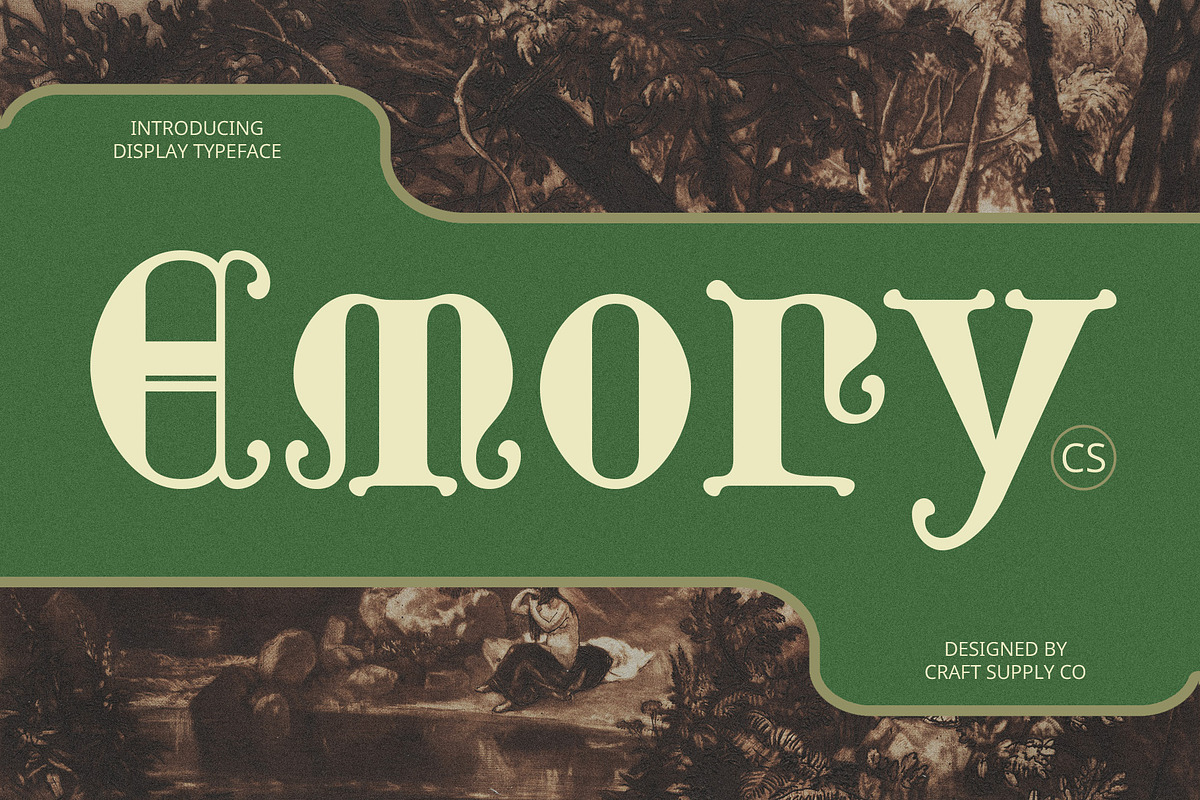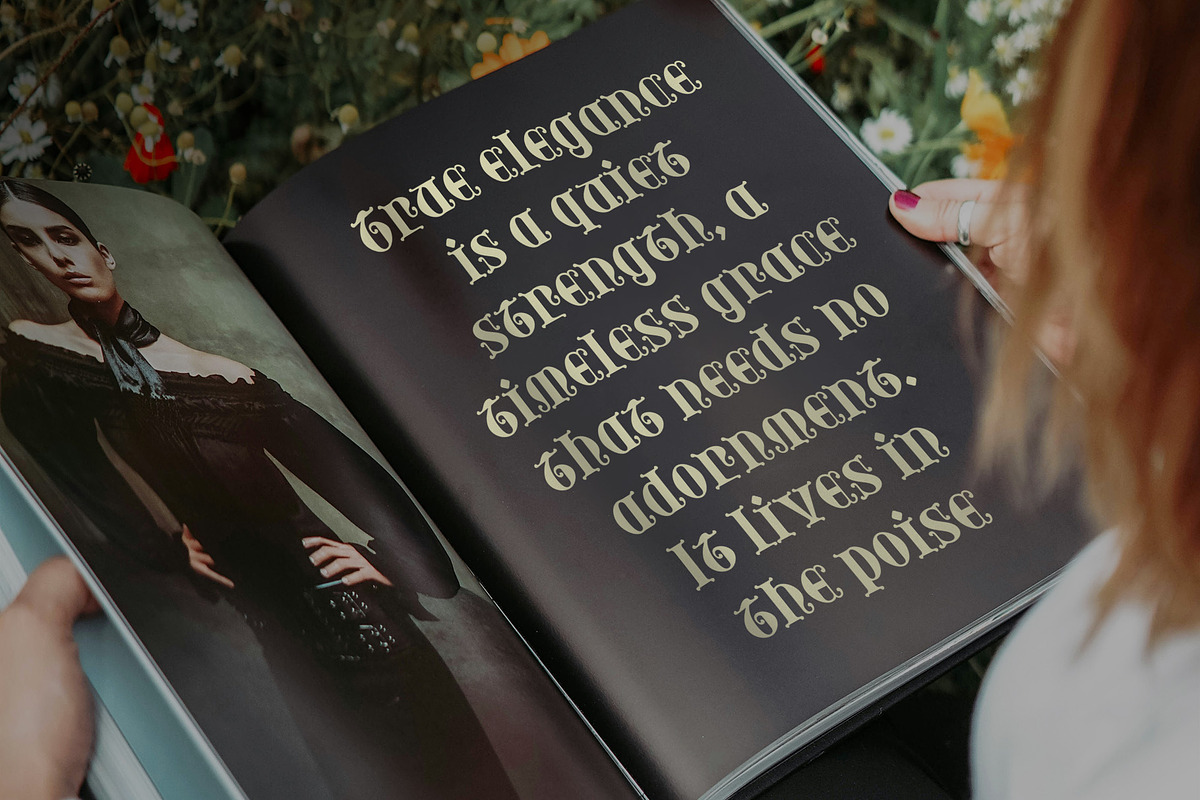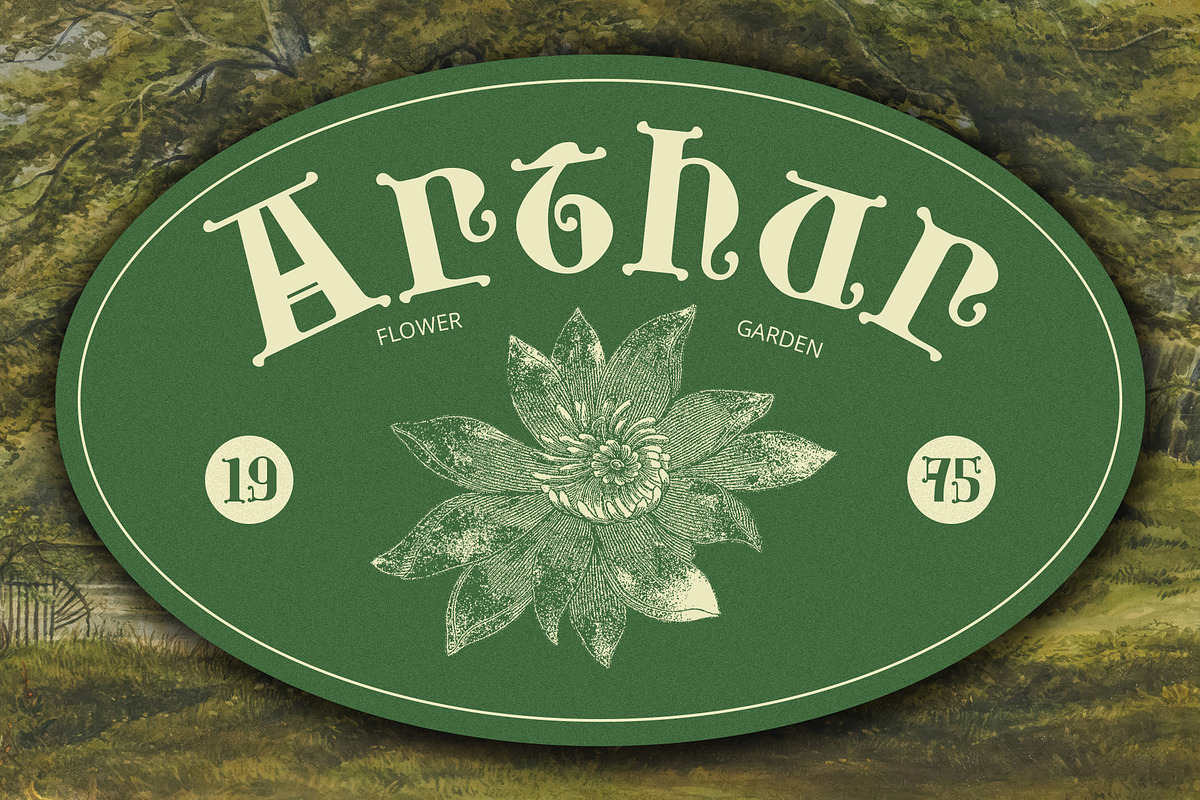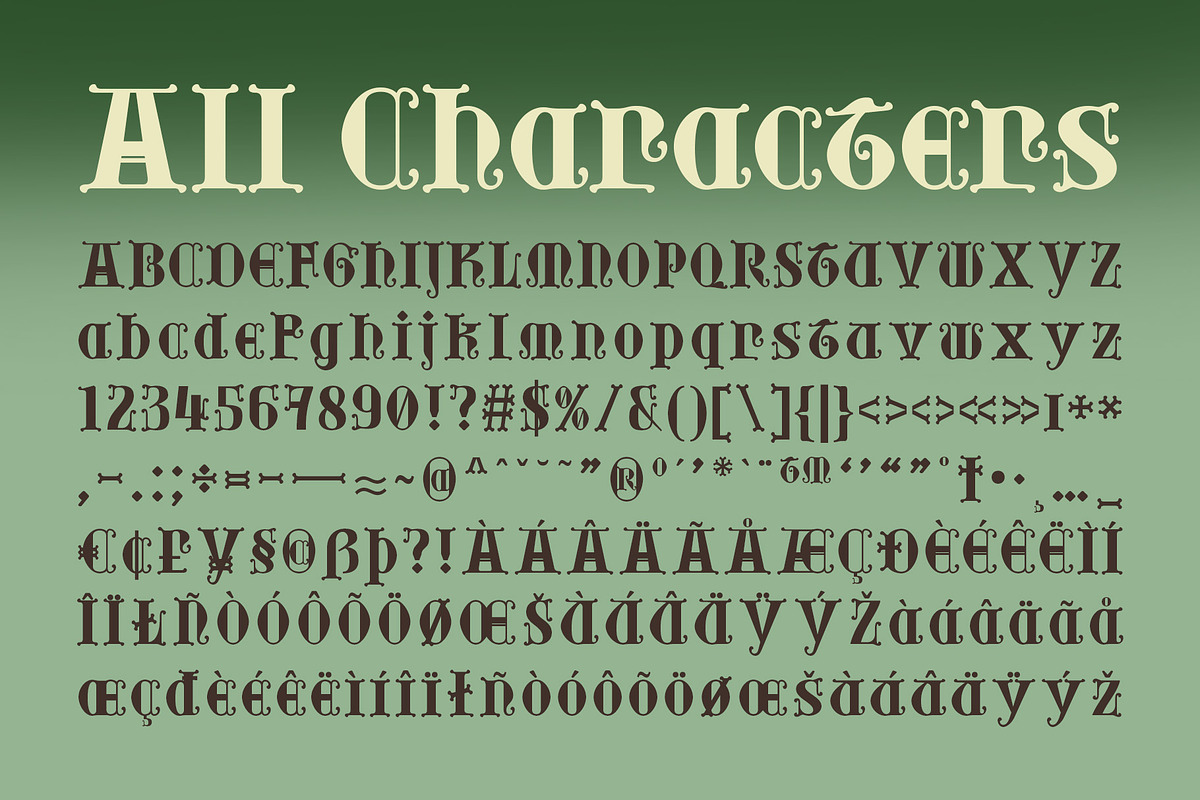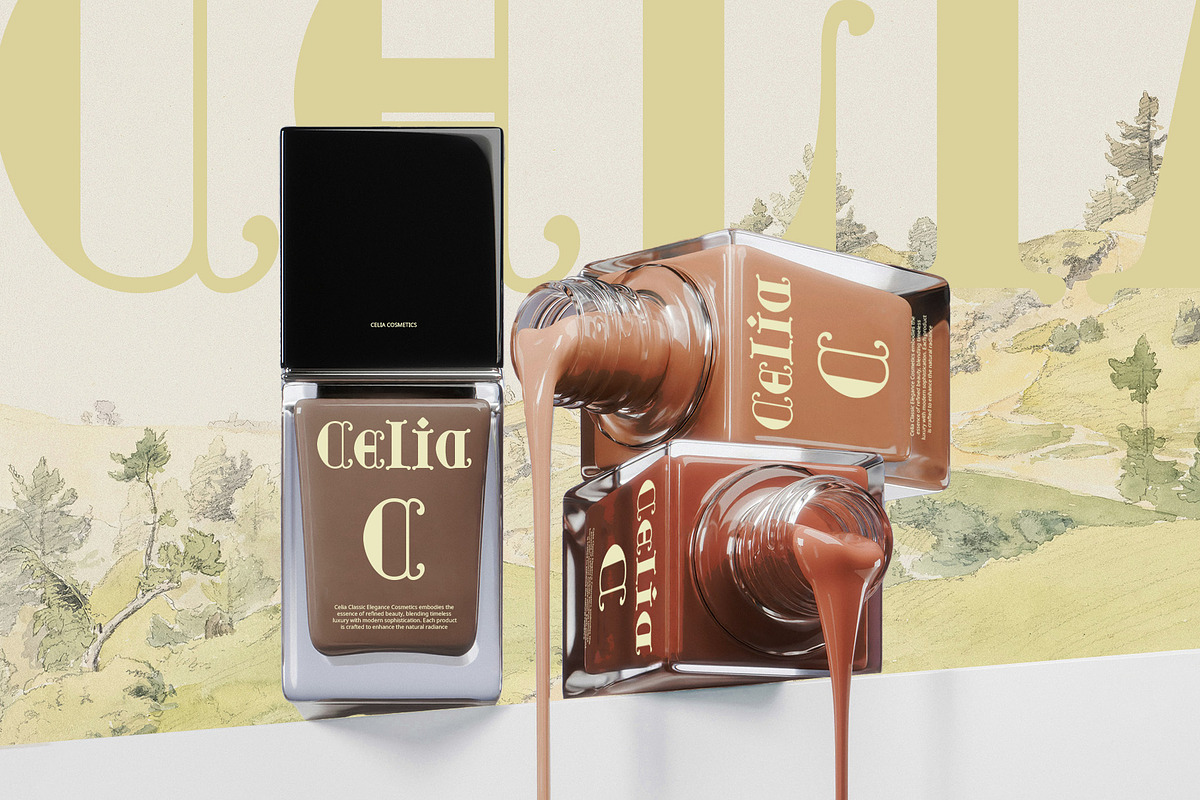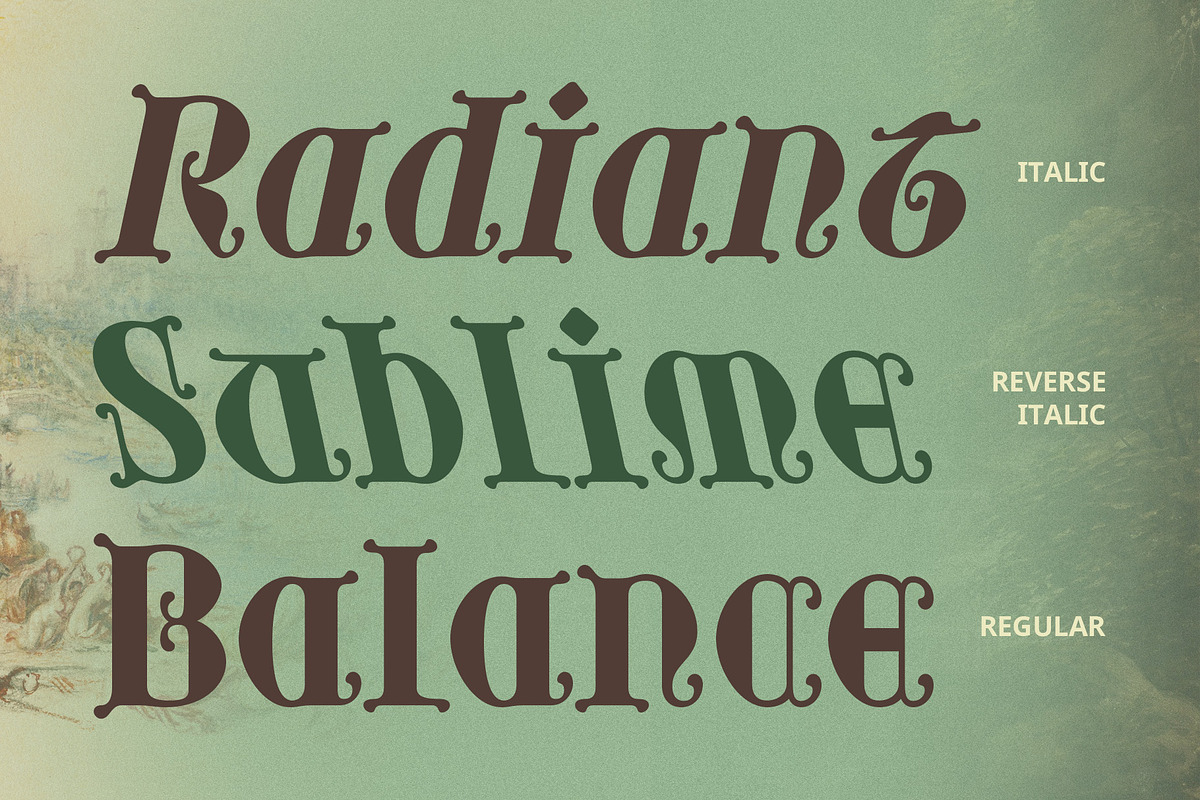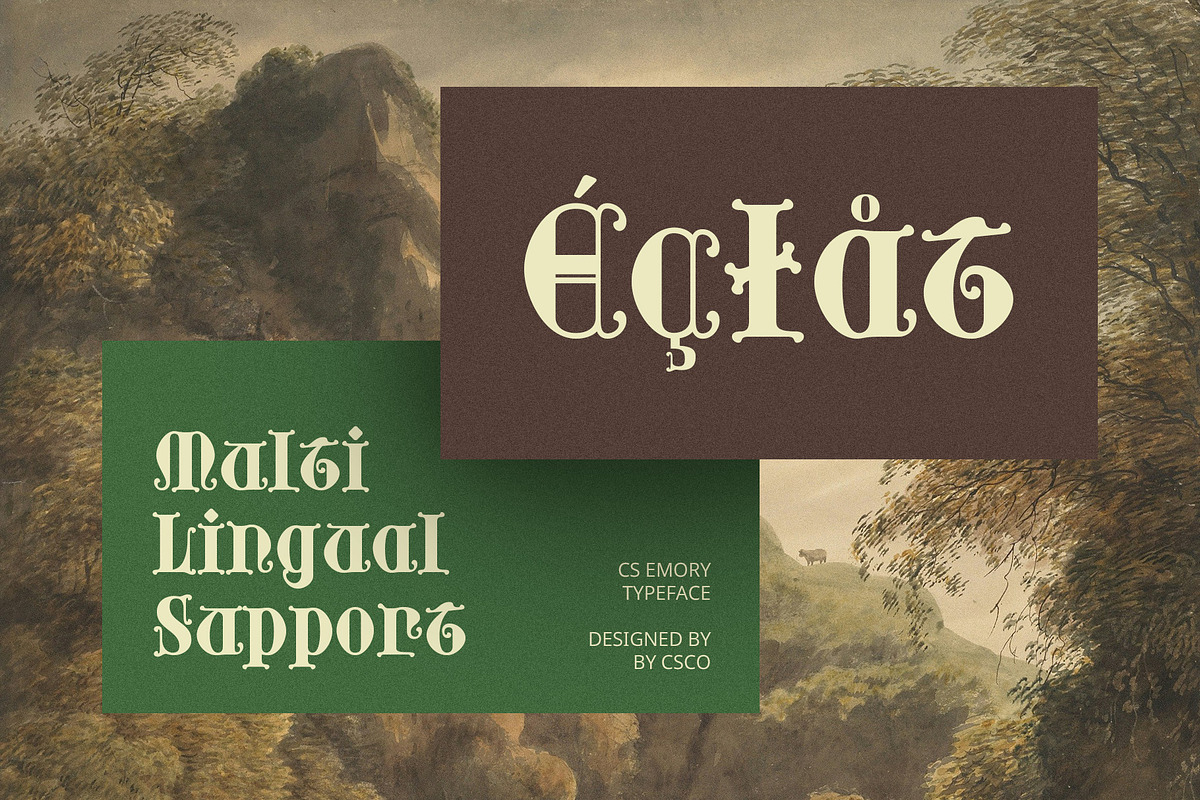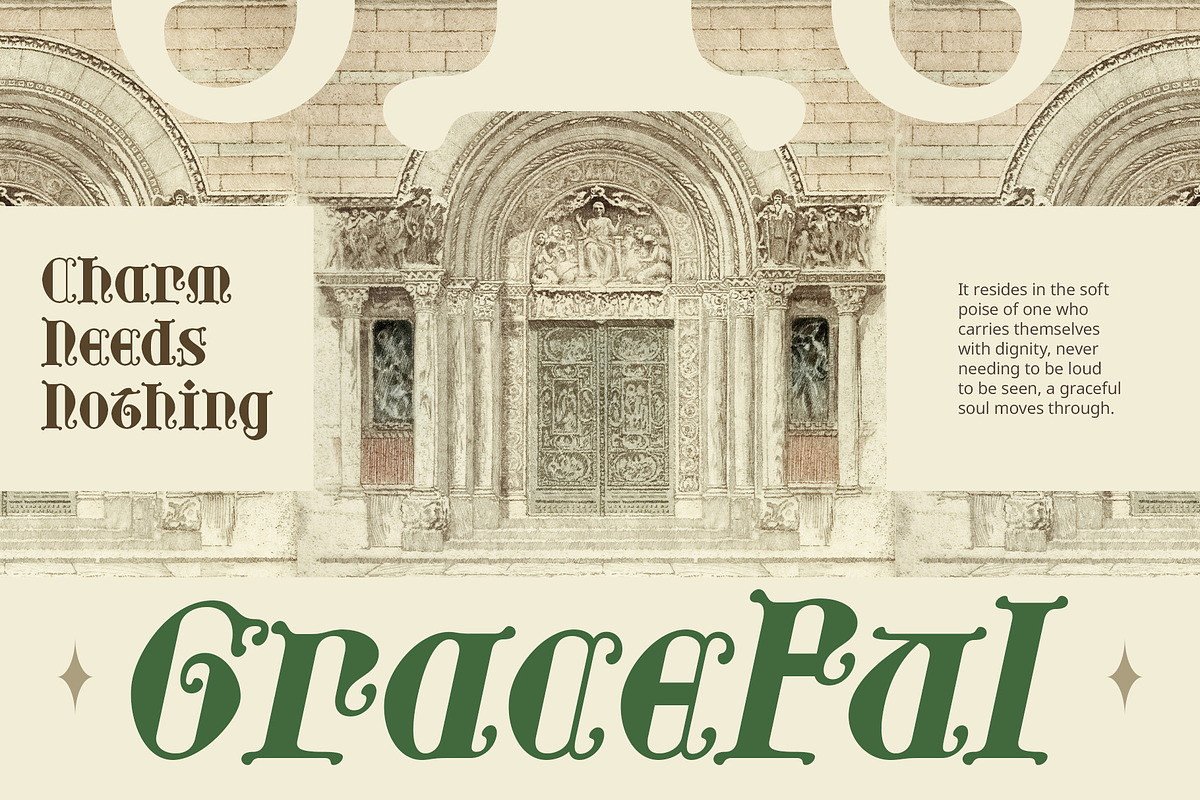
CS Emory – Gothic Uncial Font
CS Emory – Gothic Uncial Font: A Timeless Blend of History and Artistry
Gothic Uncial Display Font CS Emory is a bold display font that combines the historic charm of uncial script with the dramatic flair of Gothic design. Its rounded, semi-connected letterforms and intricate details create a font that bridges tradition and artistry, offering a bold yet elegant aesthetic.
Rounded Letterforms with Gothic Intricacy The unique design of CS Emory features smooth, rounded shapes complemented by Gothic-inspired details. These elements provide a harmonious blend of softness and strength, ideal for designs with historical or artistic themes.
Perfect for Medieval and Fantasy Themes Evoking the essence of medieval manuscripts, CS Emory is the perfect choice for projects centered on fantasy, history, or mythology. Its decorative style enhances the storytelling in book covers, posters, or themed branding.
Adds Elegance to Modern Applications Despite its historical roots, CS Emory adapts seamlessly to modern uses. Whether for elegant packaging, event invitations, or digital designs, its unique style delivers a sense of sophistication and cultural depth.
Versatile for Creative and Cultural Projects From medieval-inspired branding to fantasy artwork, CS Emory elevates projects with its timeless appeal. Its distinctive character makes it a standout font for designers seeking to combine tradition with creativity.